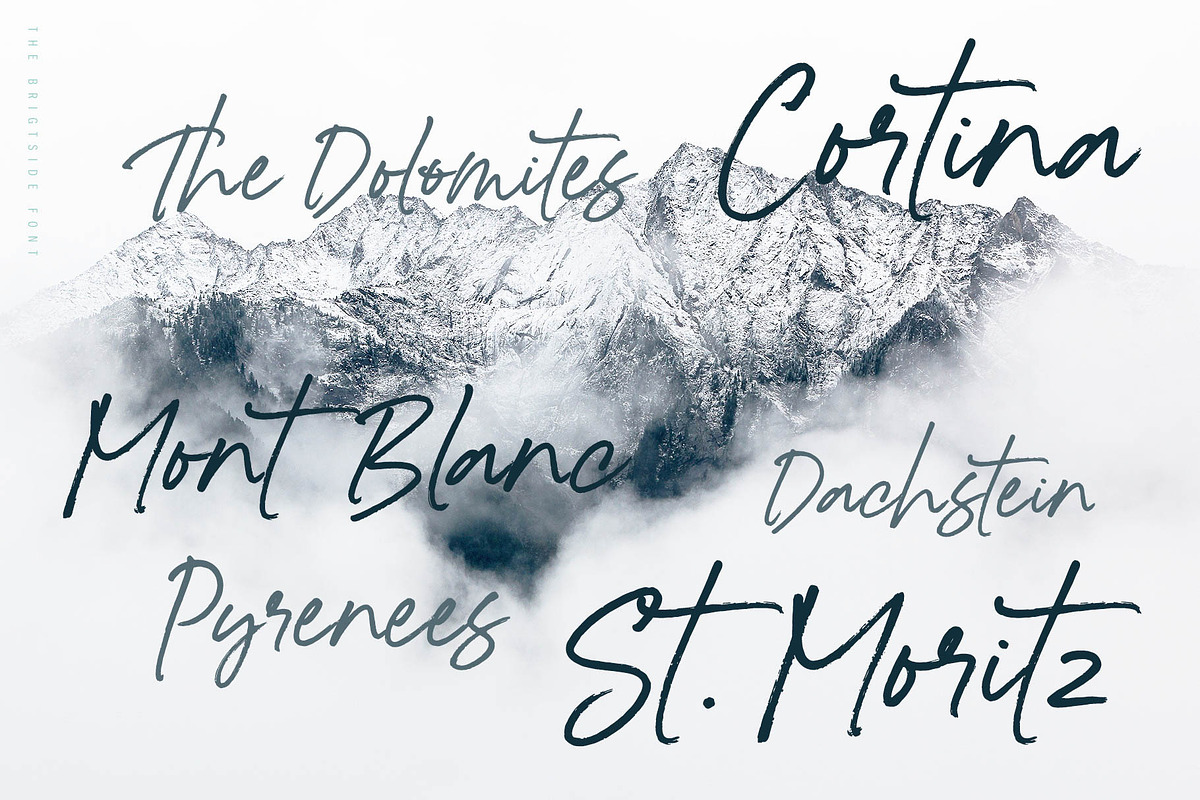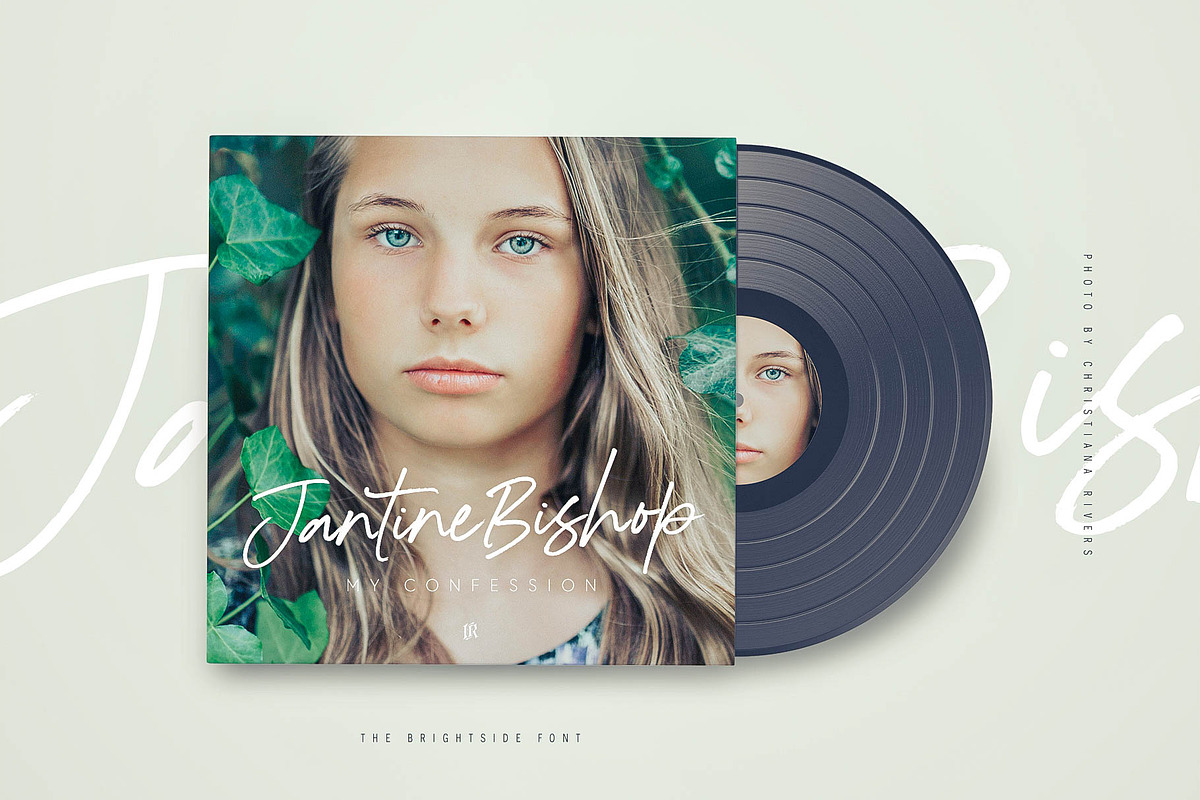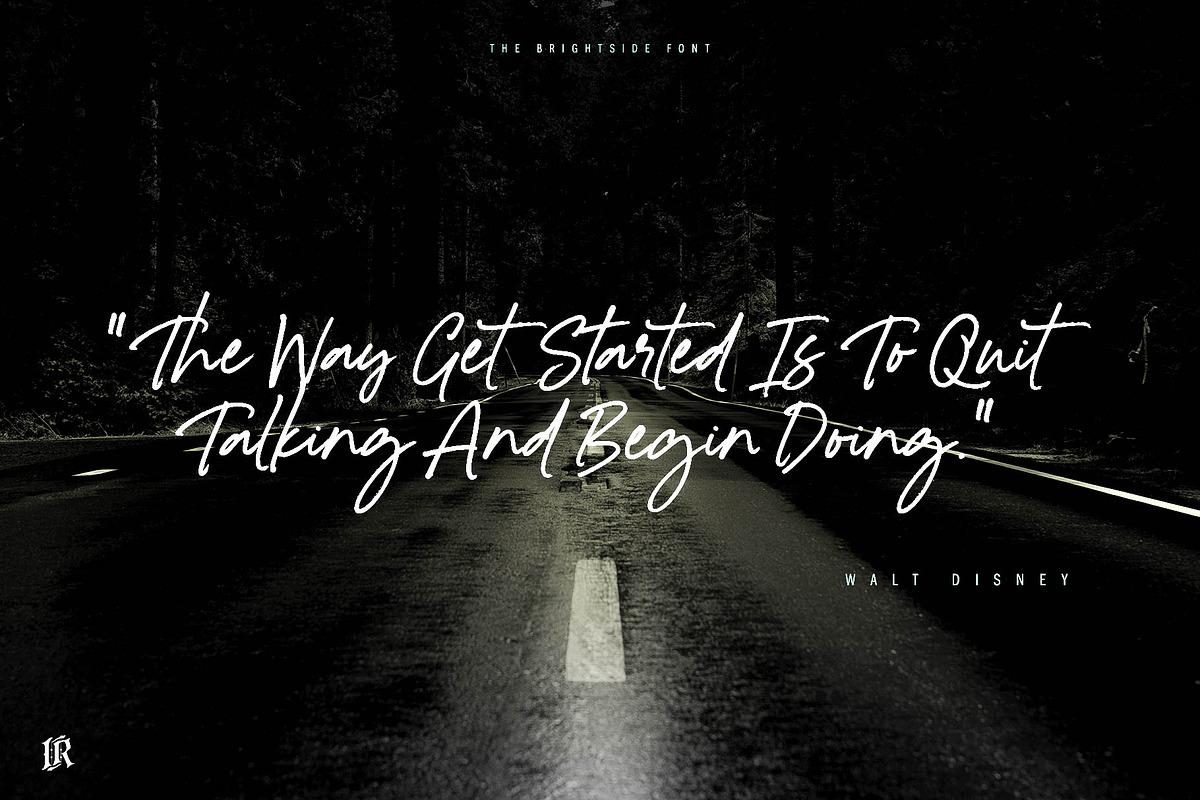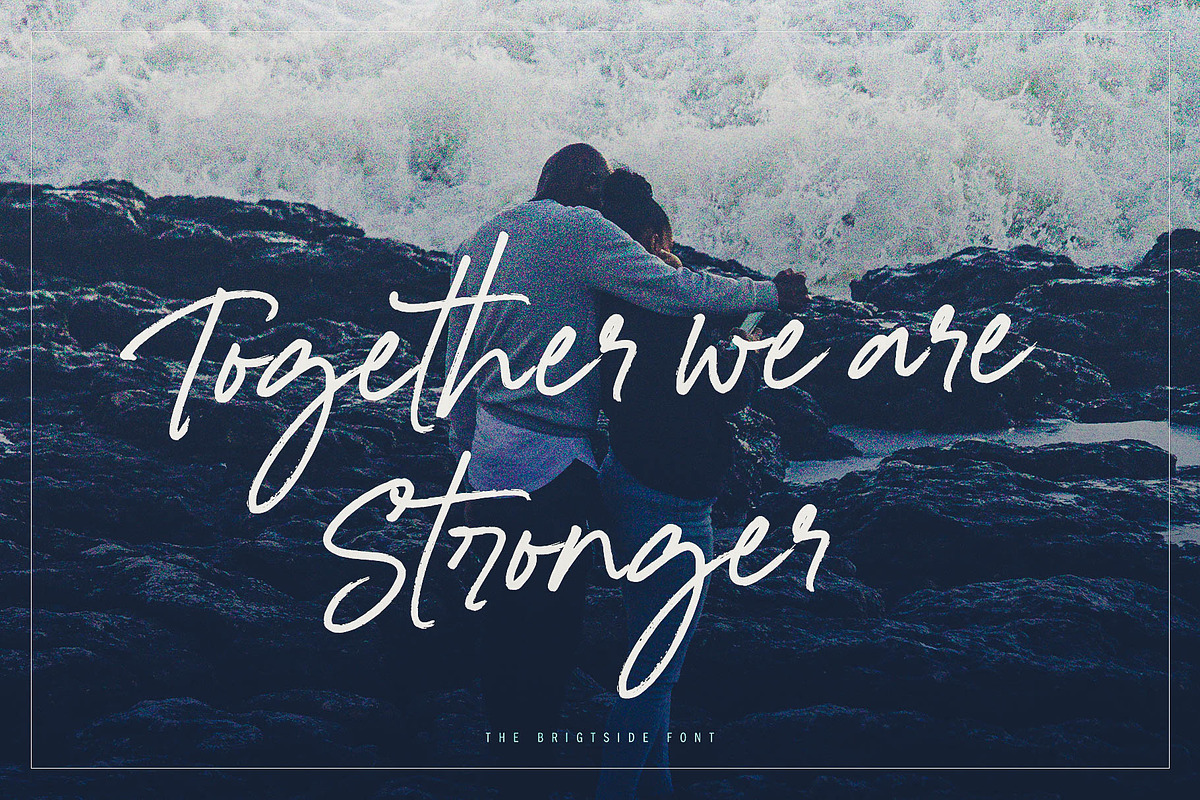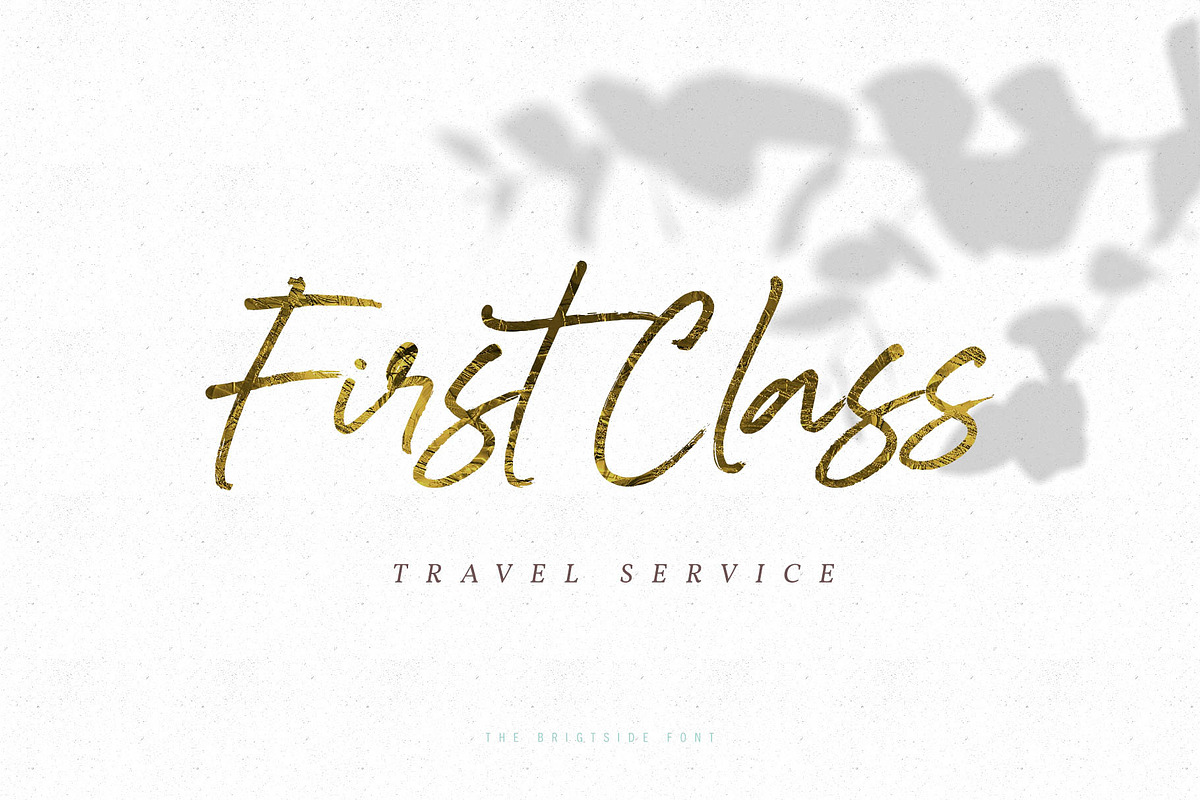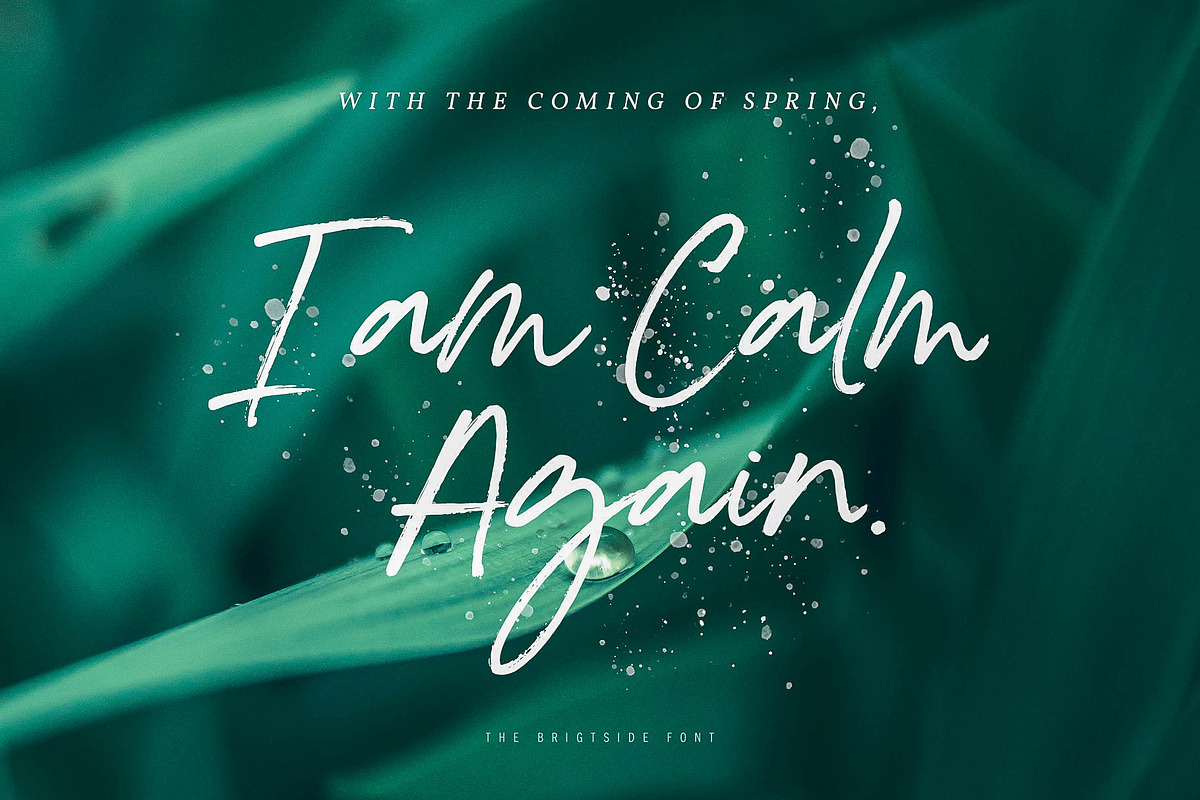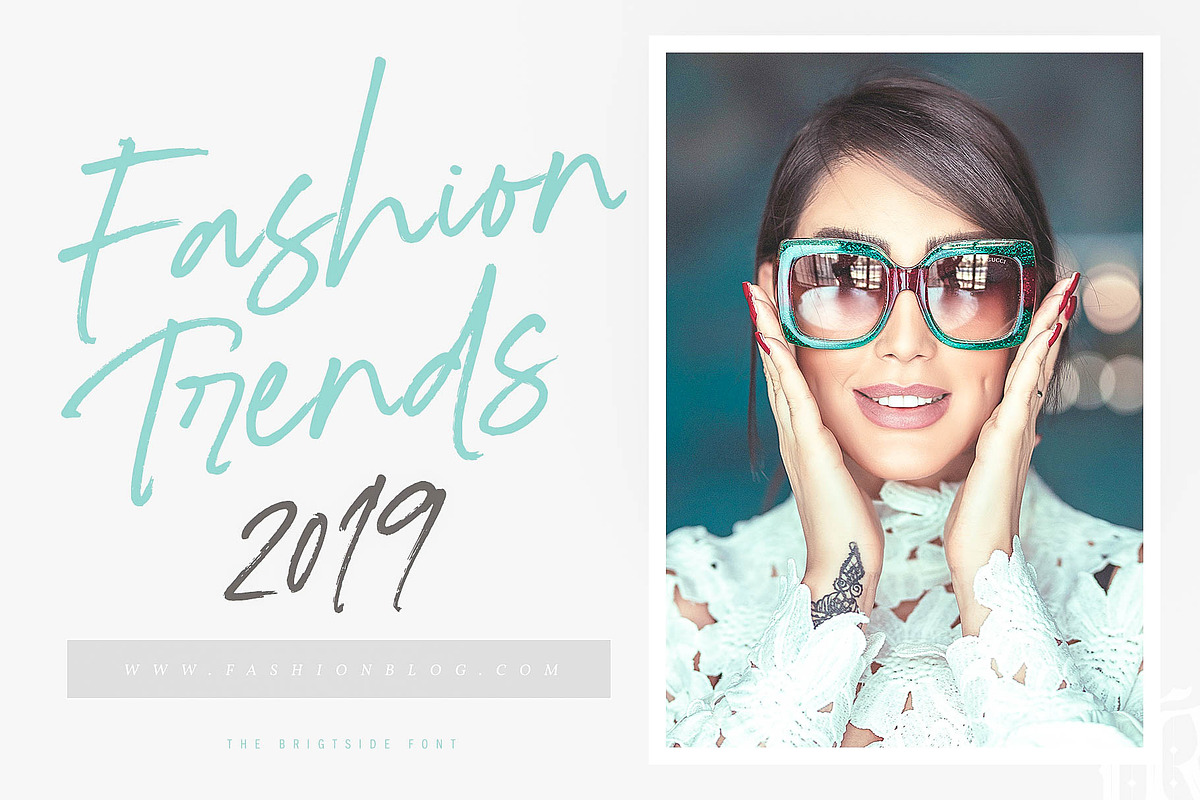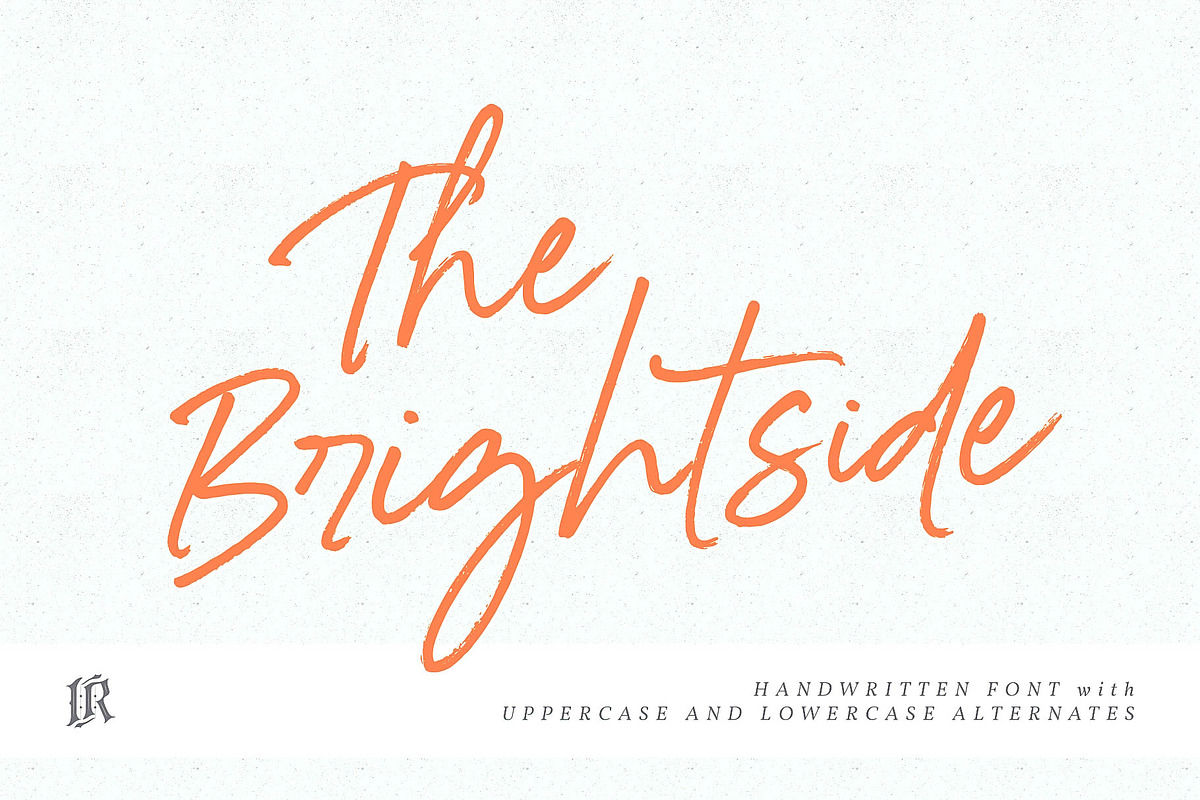
The Brightside Font
The Brightside is hand lettered font with multilingual support. Is ideal for t-shirts, magazines, phone covers, social media, restaurant menus, greeting cards, invitations, weddings, headers and many more.
This brush font comes with a complete two sets of lowercase and uppercase characters, a large range of punctuation ligatures, numerals and and multilingual support.
The Brightside is a set of Upper and Lowercase characters, numerals and lot of punctuation glyphs and 1 alternate for each character.
The Brightside Altternates The original font, with an alternate set of uppercase and lowercase letters changed for the standard characters.
The Brightside Font by Ivan Rosenberg fits naturally into Branding, posters, packaging, typography.